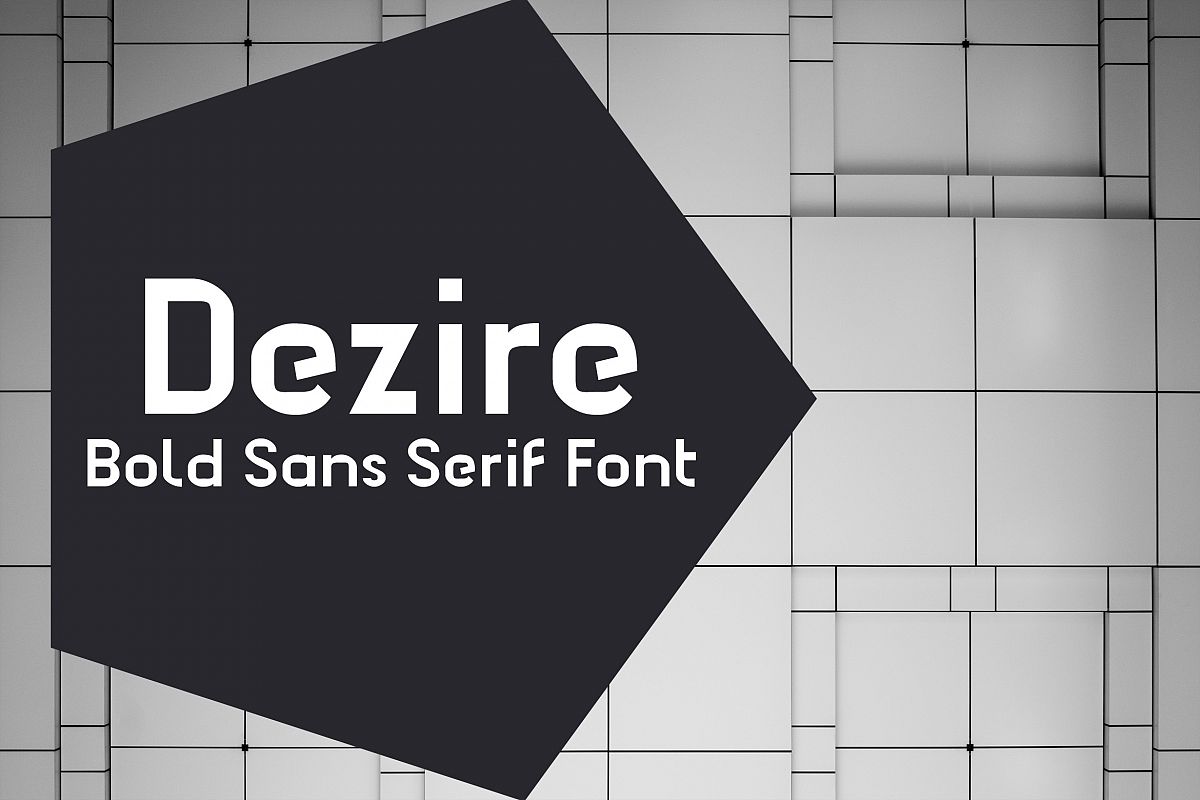
The Dezire is a new geometrical sans serif font. It’s a
delightful font perfect for headlines, logotypes, signs, posters,
greeting card, letterhead, and much more!